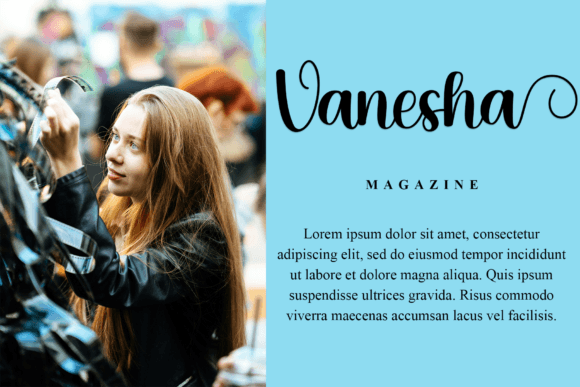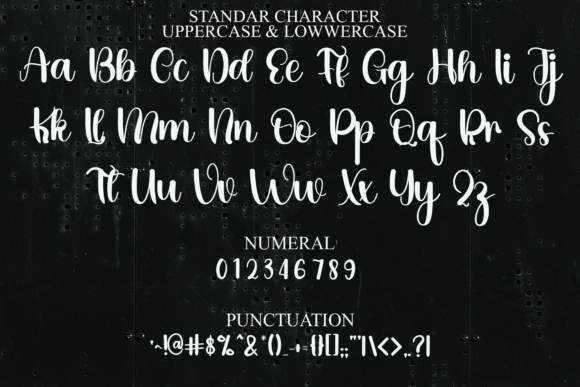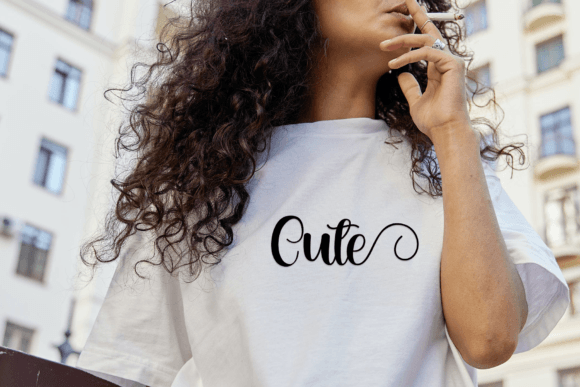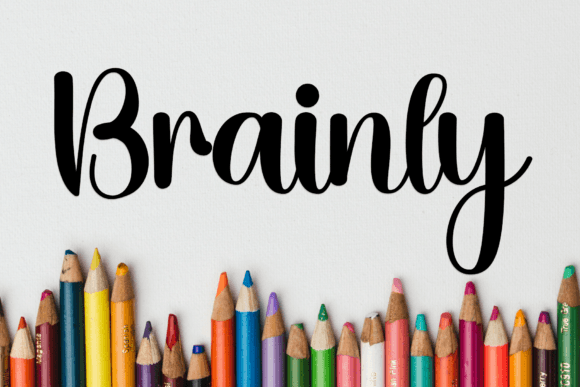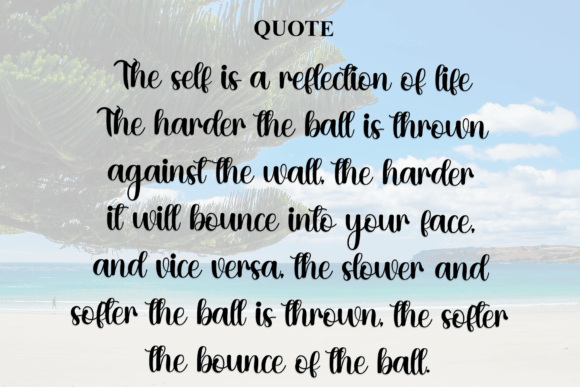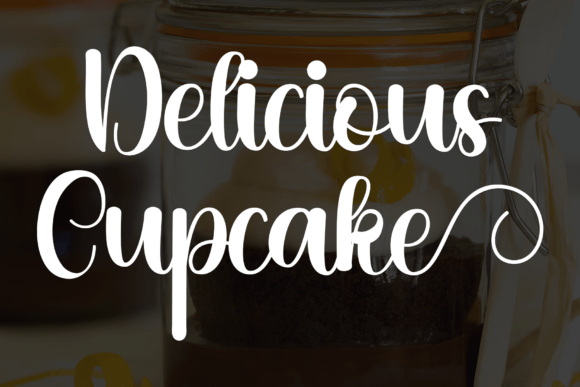
The Sweetest Font: A Comprehensive Guide to Cupcake Font
I’ll never forget the time I was working on a wedding invitation project, and my client asked for a font that was both elegant and modern. I scoured the internet, trying out font after font, but nothing seemed quite right. That was until I stumbled upon Cupcake Font. With its refined handwritten style and classy look, it was the perfect fit. In this article, I’ll share my experience with Cupcake Font, and provide you with a comprehensive guide on how to use it to elevate your designs.
An Honest Review of Cupcake Font
Cupcake Font is a beautiful and refined handwritten font that has won my heart. Here’s what I love about it:
- ✨ Elegant and modern look that’s perfect for logos, branding, invitations, and more
- ✅ PUA encoded, making it easy to access all the amazing glyphs and ligatures
- 💫 Highly versatile and can be used for a wide range of design projects
While Cupcake Font is amazing, it’s not perfect. Here are a few small quirks to keep in mind:
- ⚠️ Some users may find the font a bit too refined or delicate for certain projects
- 🤔 Limited availability of certain characters or symbols, but this can be worked around with glyphs
The Story Behind Cupcake Font
Cupcake Font was designed by a team of typographers who wanted to create a font that was both elegant and approachable. Inspired by the beauty of handwritten script, they crafted a font that would be perfect for a wide range of design projects. From wedding invitations to branding and logos, Cupcake Font is the perfect choice for designers who want to add a touch of sophistication to their work.
- Q: What is Cupcake Font?
- A: Cupcake Font is a beautiful and refined handwritten font with a classy, elegant, and modern look.
- Q: Is Cupcake Font PUA encoded?
- A: Yes, Cupcake Font is PUA encoded, making it easy to access all the amazing glyphs and ligatures.